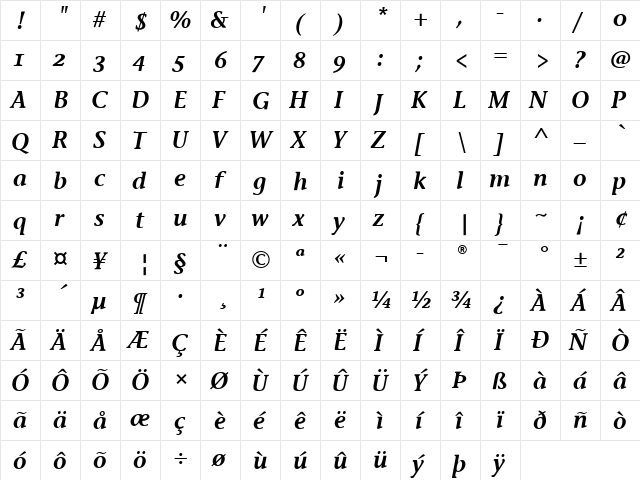
StoneInfOSITC Italic
Design Context for StoneInfOSITC Typeface
StoneInfOSITC offers clean, dependable letterforms without strong stylistic allegiance, making it a practical choice for designers who need flexibility. The dynamic lean of this cut emphasises speed and emphasis in any layout.
Pro Tip: Try StoneInfOSITC for annotation and caption copy alongside an upright companion — the contrast in angle creates a dynamic but ordered typographic system.